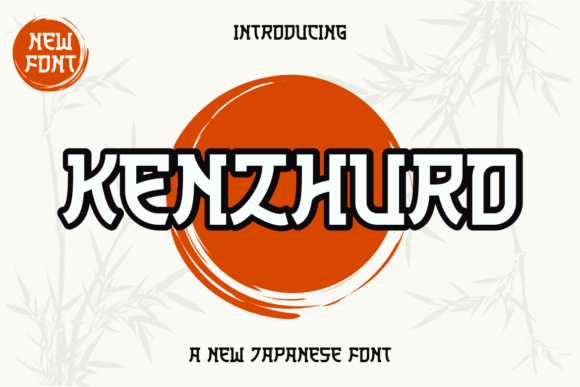
Experience the Enchanting Word of Kenzhuro: A Font That Radiates Charm, Beauty, and Versatility
In a world of mundane typefaces, Kenzhuro Font emerges as a radiant beacon of beauty, captivating your eyes with its exquisite aesthetics and rich cultural heritage. This exceptional Japanese font family embodies the perfect blend of elegance and functionality, making it the ideal choice for those seeking a font that speaks to the heart.
Immerse yourself in the mystique of the Orient as you explore the intricate strokes and delicate curves of Kenzhuro Font, meticulously crafted to reflect the profound beauty and artistry of Japanese calligraphy. Whether you're a creative professional seeking to elevate your designs or a casual user yearning for a touch of elegance in your digital communications, this font is your gateway to a world of captivating visual storytelling.
With Kenzhuro Font as your creative companion, you'll discover endless possibilities to express yourself in a way that leaves a lasting impression. Unleash your inner artist and delve into the realm of captivating designs, creating stunning logos that exude sophistication, eye-catching social media posts that demand attention, and captivating website designs that invite exploration. The versatility of Kenzhuro Font knows no bounds, seamlessly adapting to a myriad of design contexts, ensuring that your creative vision always shines through.
Elevate your written communications to new heights with Kenzhuro Font, transforming ordinary text into captivating works of art. Its carefully crafted characters dance across the screen, capturing the essence of your message with grace and poise. From heartfelt love letters to formal business proposals, Kenzhuro Font adds a touch of refinement that speaks volumes about your attention to detail and appreciation for the finer things in life.
Join countless creatives, designers, and tastemakers who have embraced Kenzhuro Font as their secret weapon to stand out from the crowd. Its timeless beauty and versatility have made it a favorite among those who seek to leave an indelible mark on the world through their creative endeavors.
Embark on a creative journey like no other, and allow Kenzhuro Font to guide you towards unexplored realms of visual expression. Discover the boundless potential that lies within this exquisite font family, and unlock a world of beauty, elegance, and endless creative possibilities.